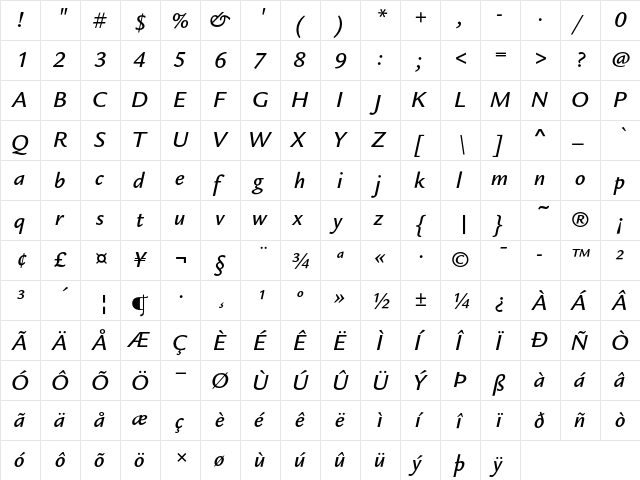
Legacy Sans ITC Medium Italic
Design Context for Legacy Sans ITC Typeface
Legacy Sans ITC offers clean, dependable letterforms without strong stylistic allegiance, making it a practical choice for designers who need flexibility. Its italic angle brings a sense of urgency and motion to the letterforms.
Pro Tip: Use Legacy Sans ITC for emphasis, pull quotes, and subheadings where its slanted energy can add rhythm to the layout.